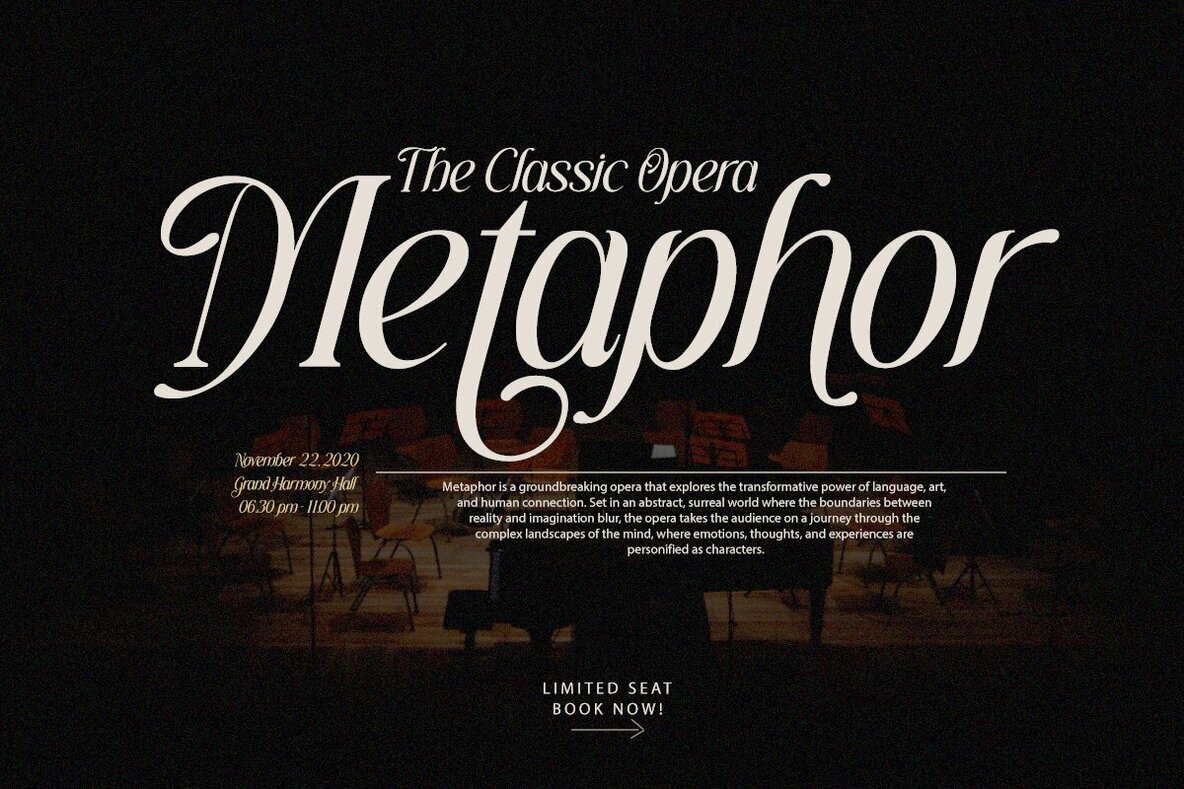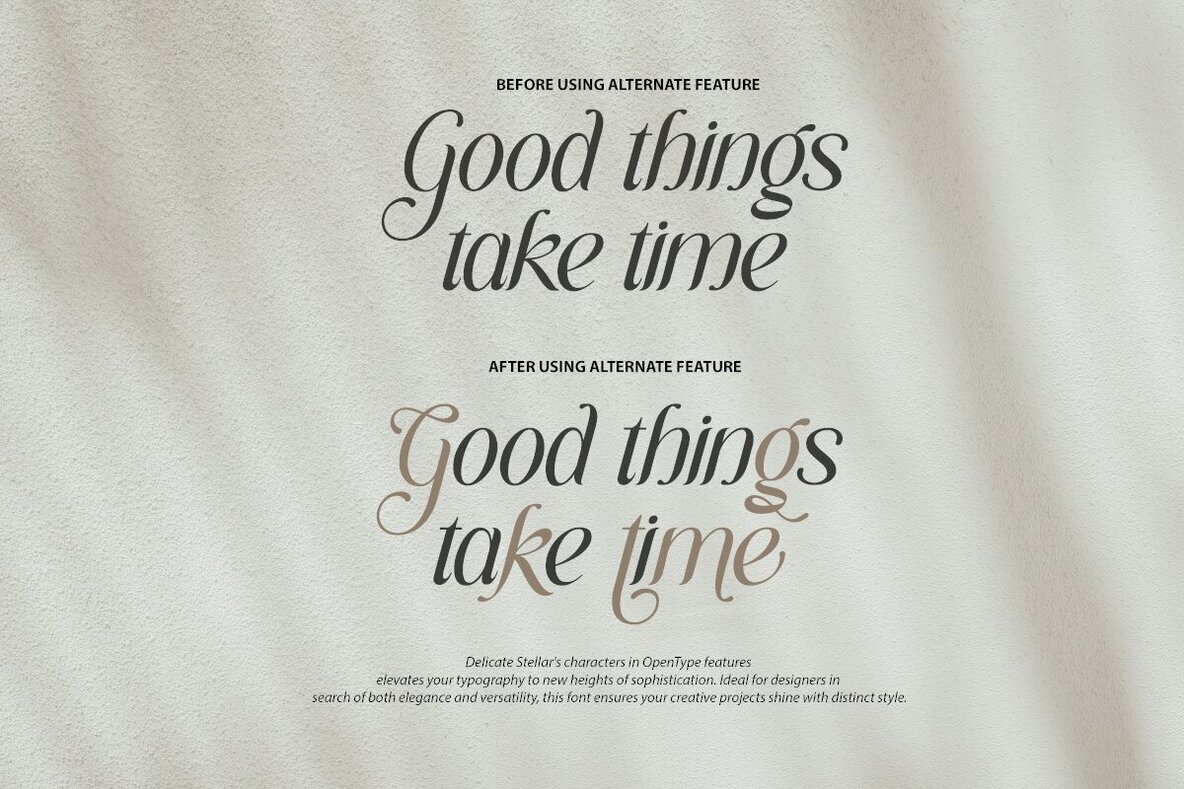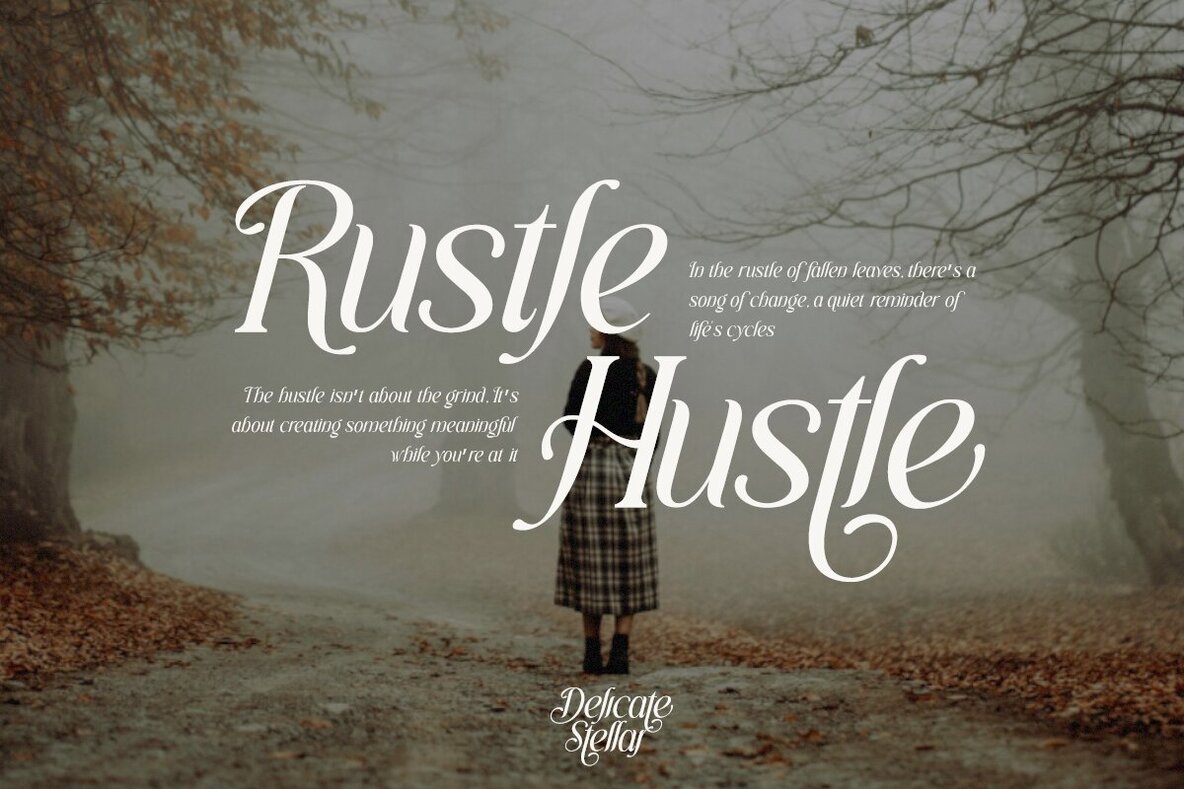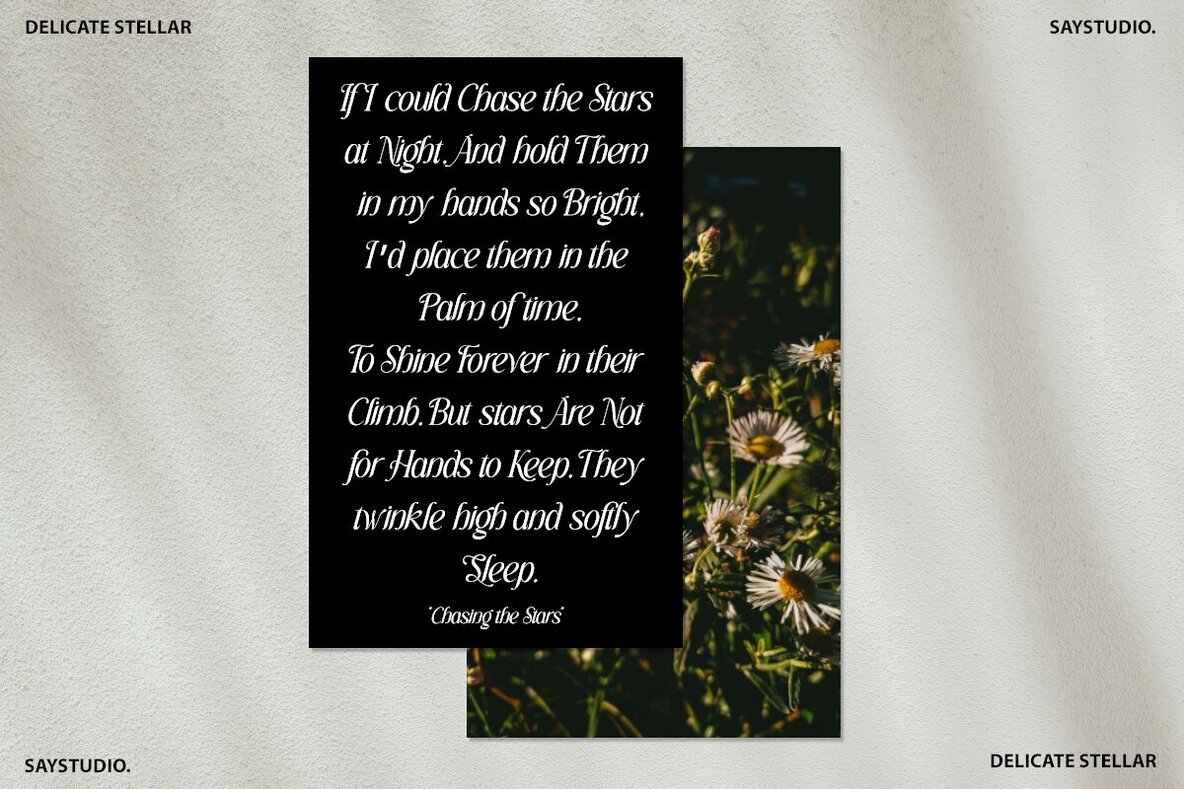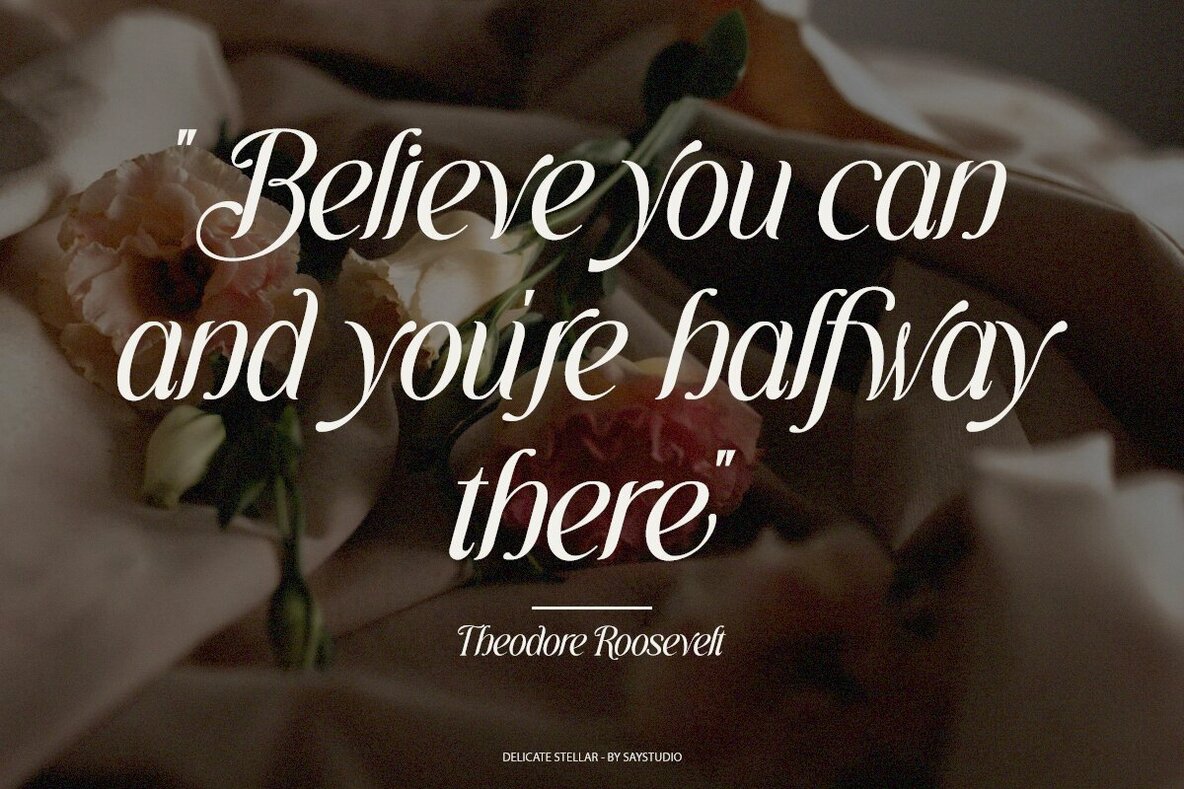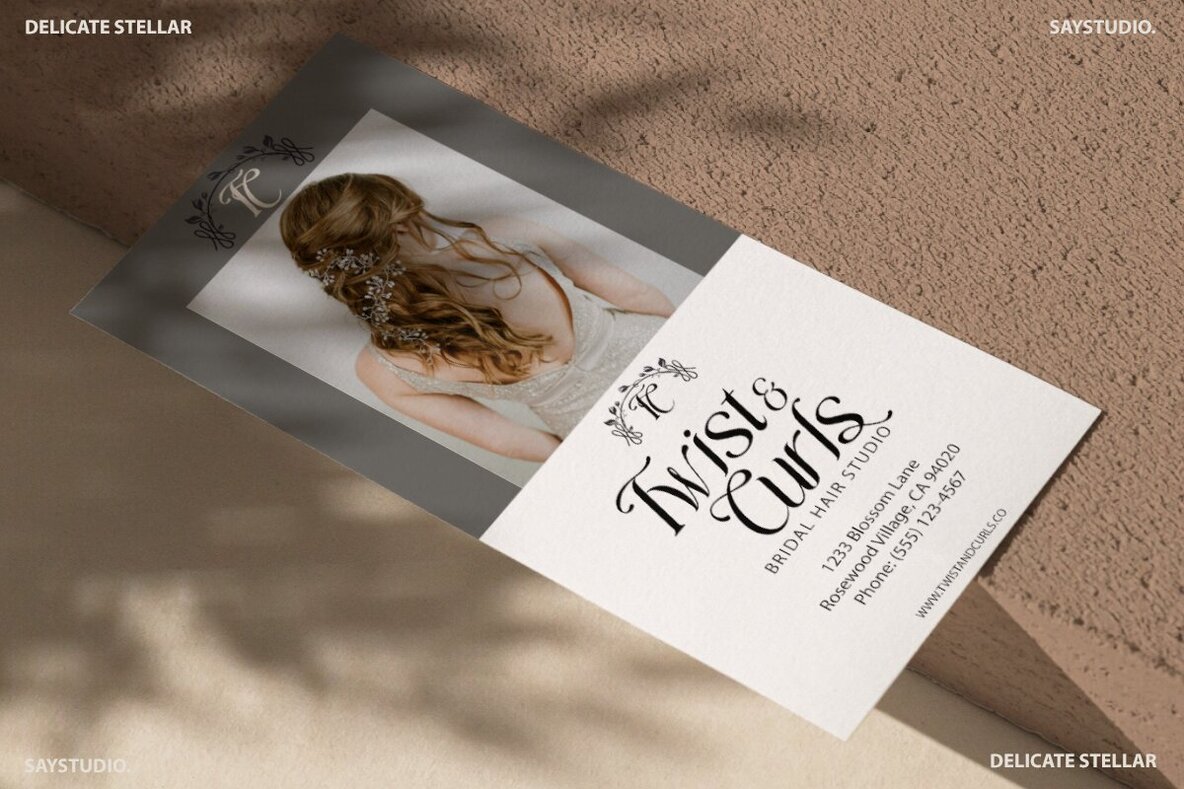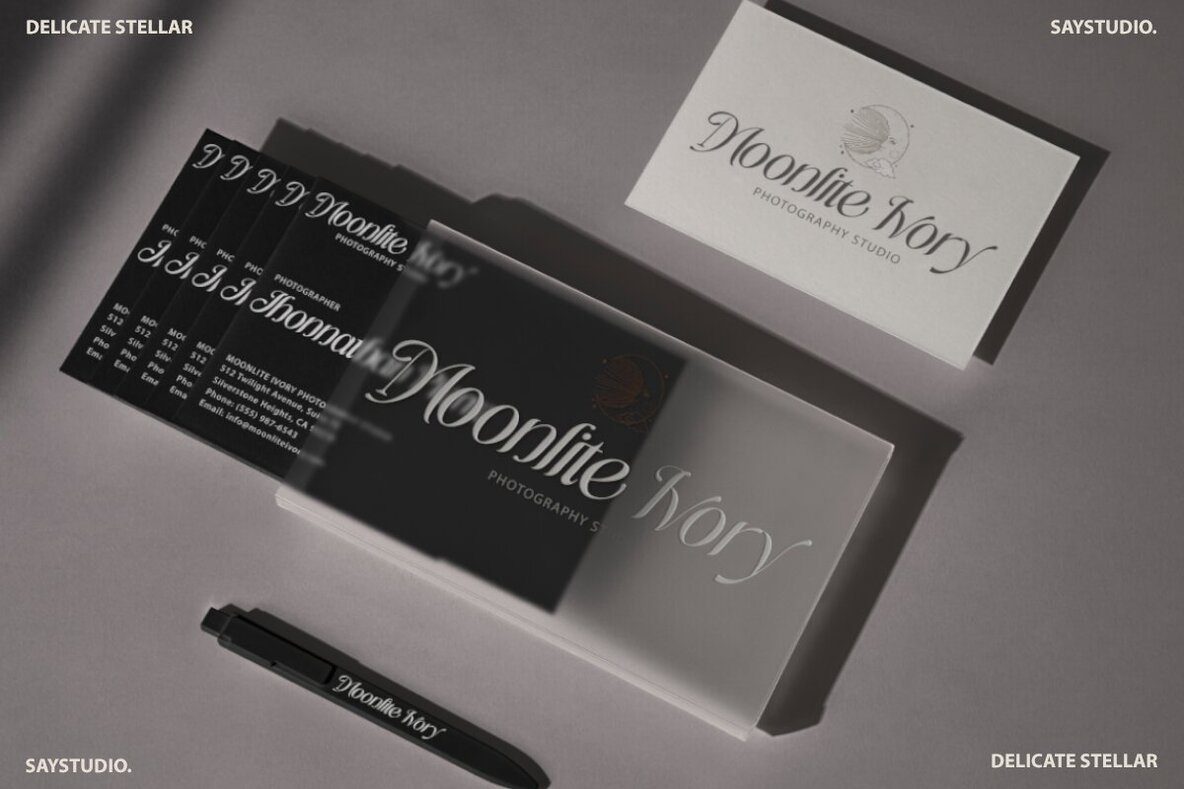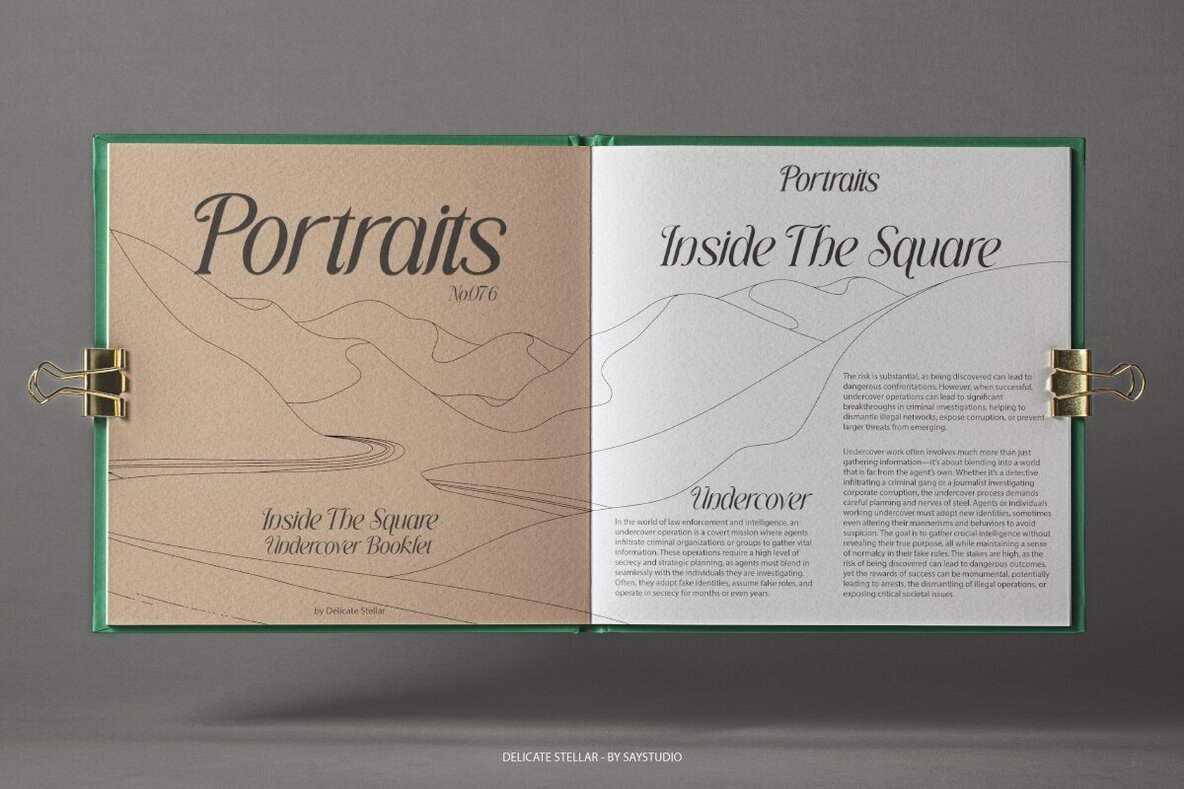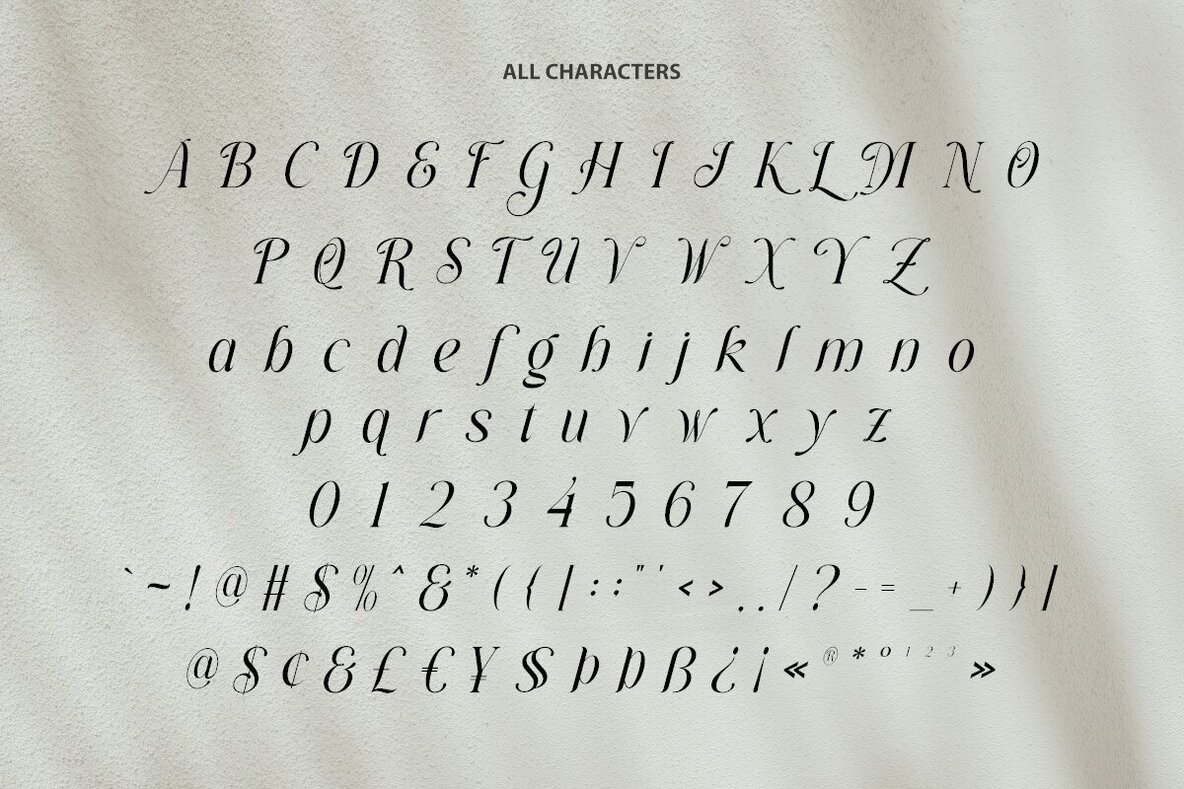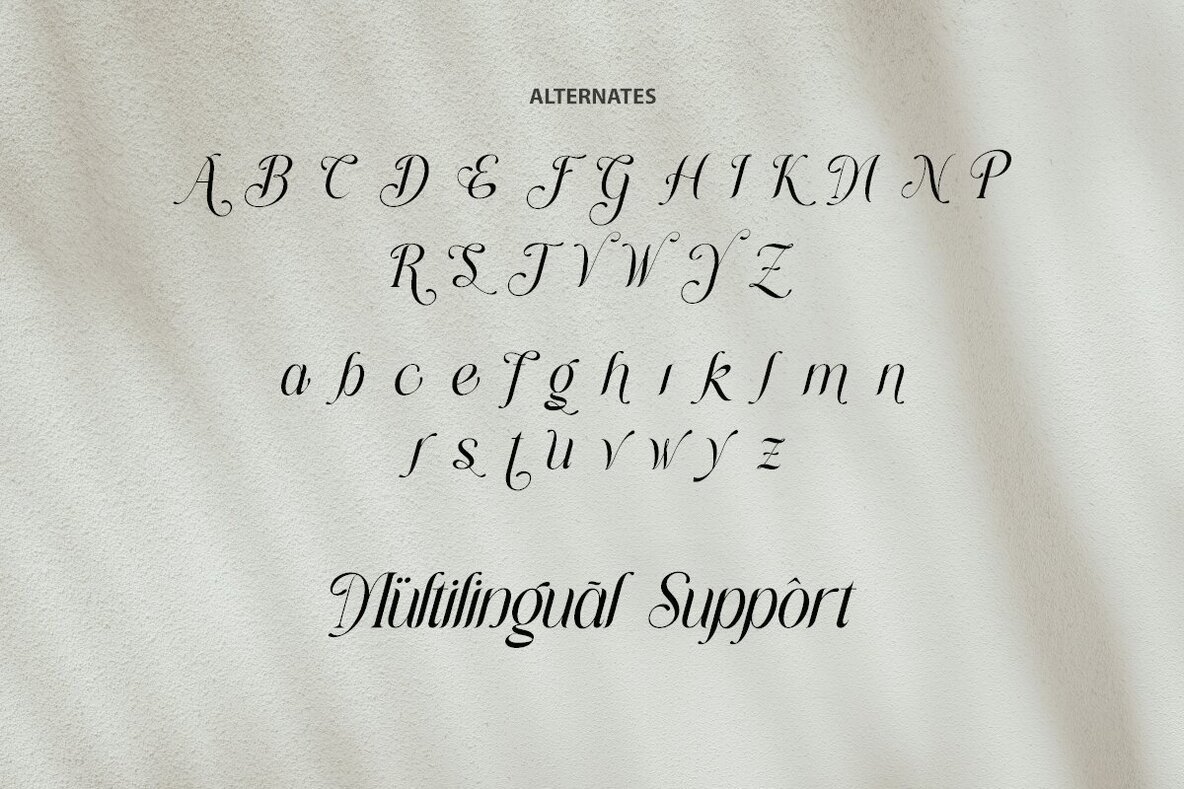
Delicate Stellar Font
Delicate Stellar
Delicate Stellar is an elegant italic font that combines the nuances of serif and script styles, making it perfect for sophisticated design projects. Its refined appearance is ideal for brand identity, elegant invitations, product labels, and clothing design, offering a touch of sophistication.
The font's OpenType features include stylistic alternates, providing designers with versatility and creative freedom. Additional features of Delicate Stellar include multilingual support and a full set of symbols and numbers, ensuring it meets the needs of various projects. The font is designed to work seamlessly on both PC and Mac, offering simple installation for ease of use.